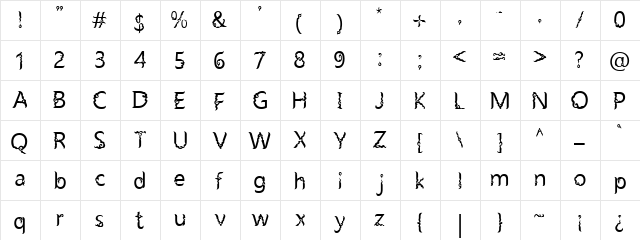
Cloudy Mega Regular
Design Context for Cloudy Mega Typeface
Cloudy Mega takes a measured approach to typography — its balanced proportions and neutral character make it a reliable workhorse for both digital and print work.
Pro Tip: Pair Cloudy Mega with a font of contrasting weight or personality to build a more expressive typographic hierarchy.